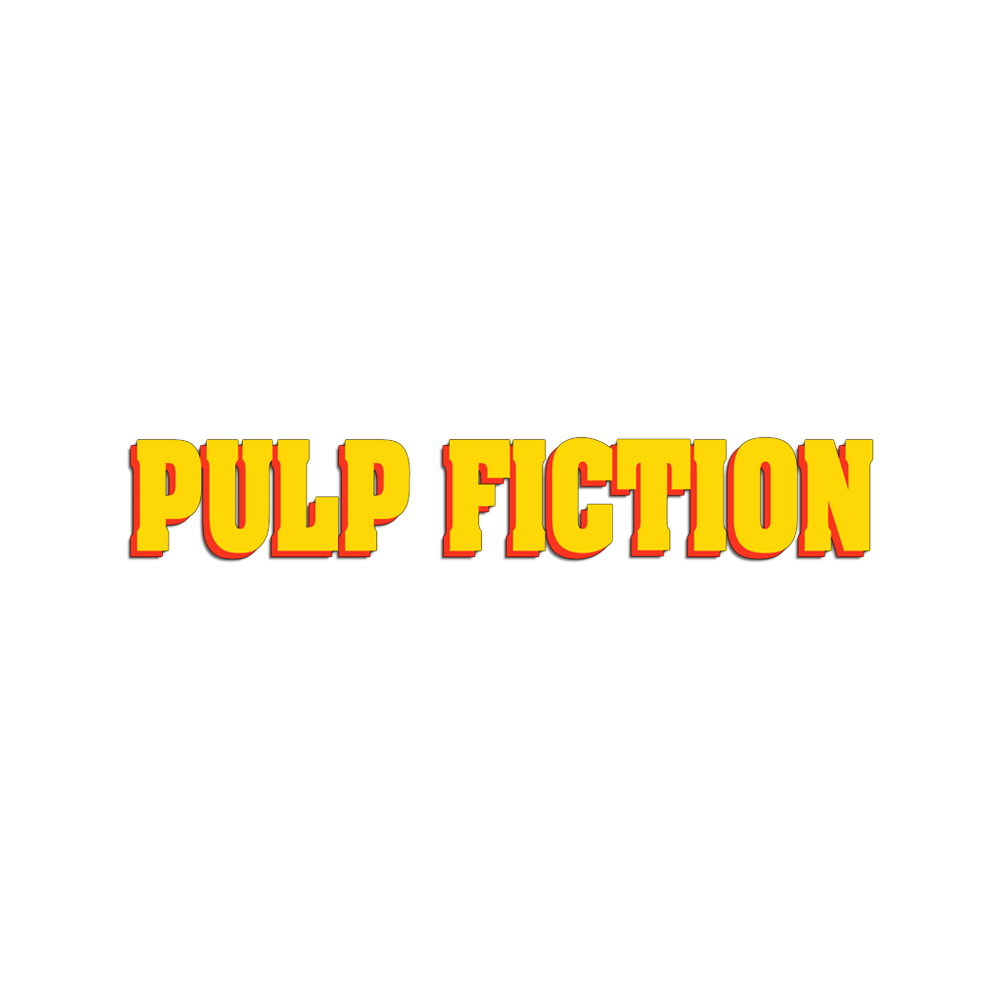
Pulp Fiction Font
Fonts in UsePulp Fiction is a highly acclaimed crime film directed by Quentin Tarantino, featuring intertwining storylines of eccentric characters, dark humor, and nonlinear narrative.
The font used for the film title on the poster resembles Aachen Bold, a slab serif typeface designed by Colin Brignall and Alan Meeks. More details can be viewed here.